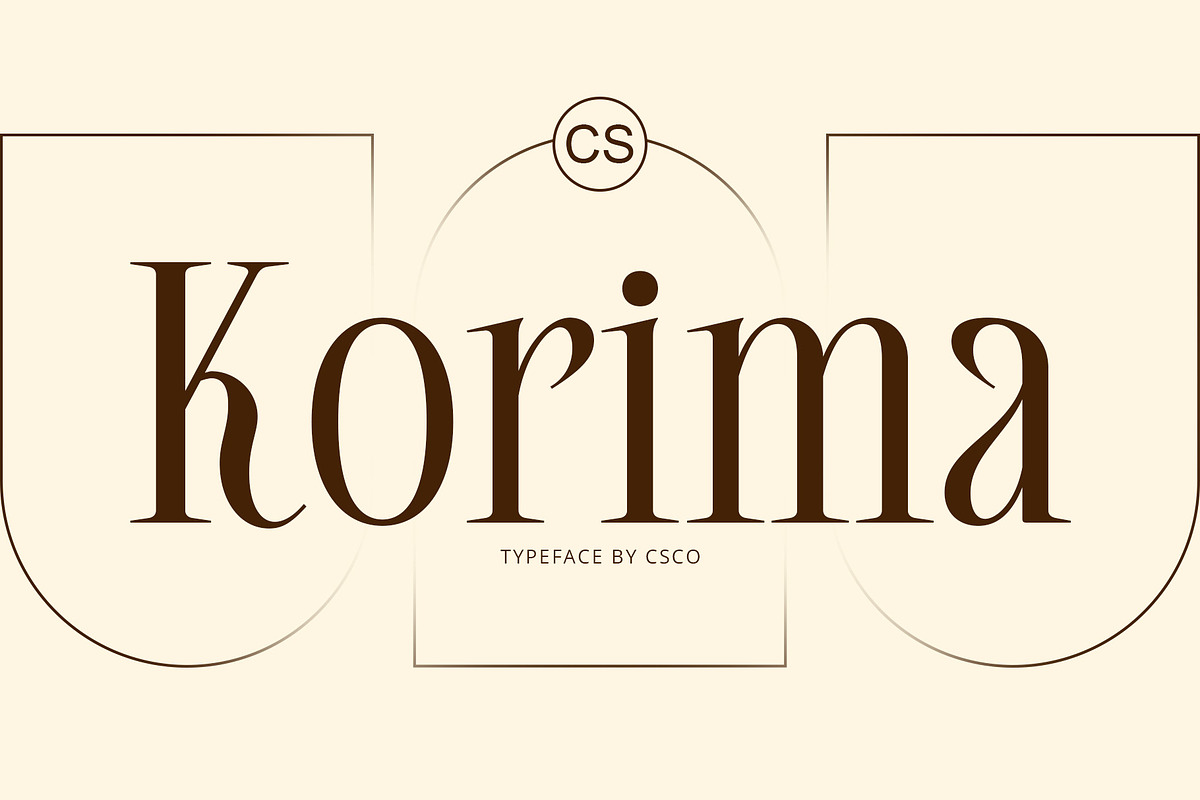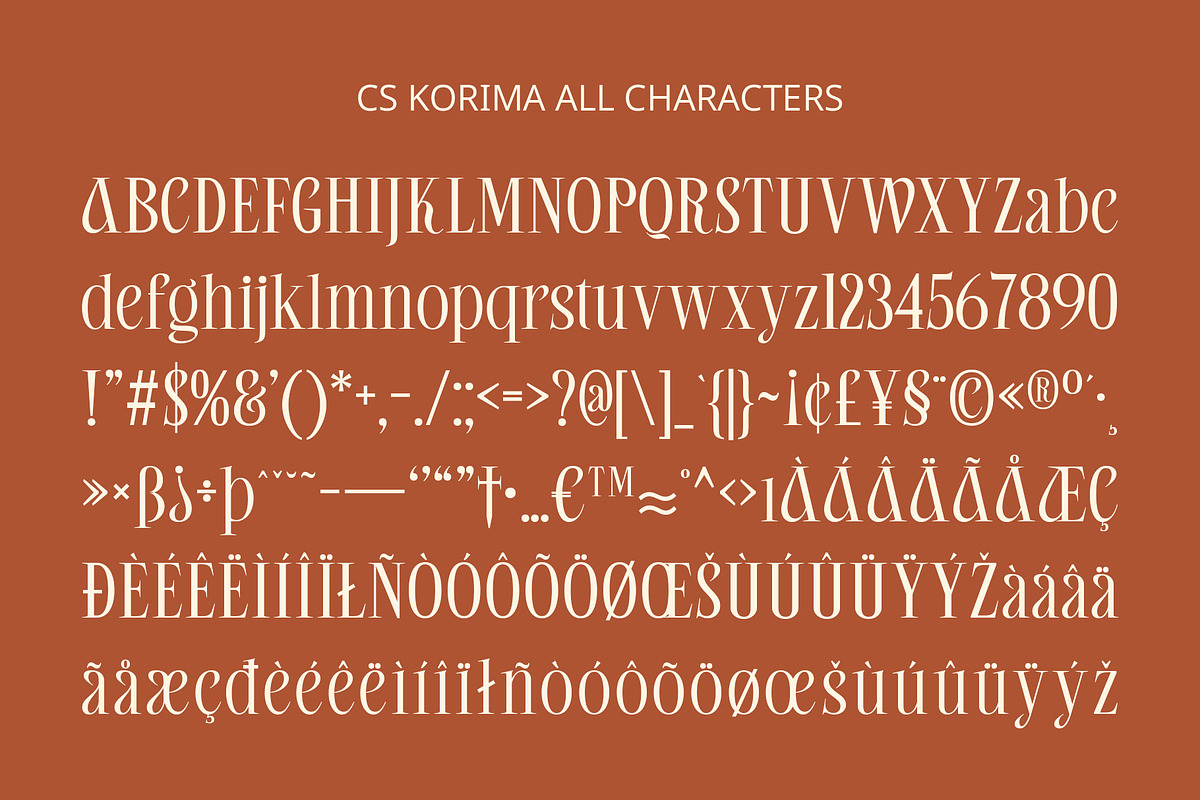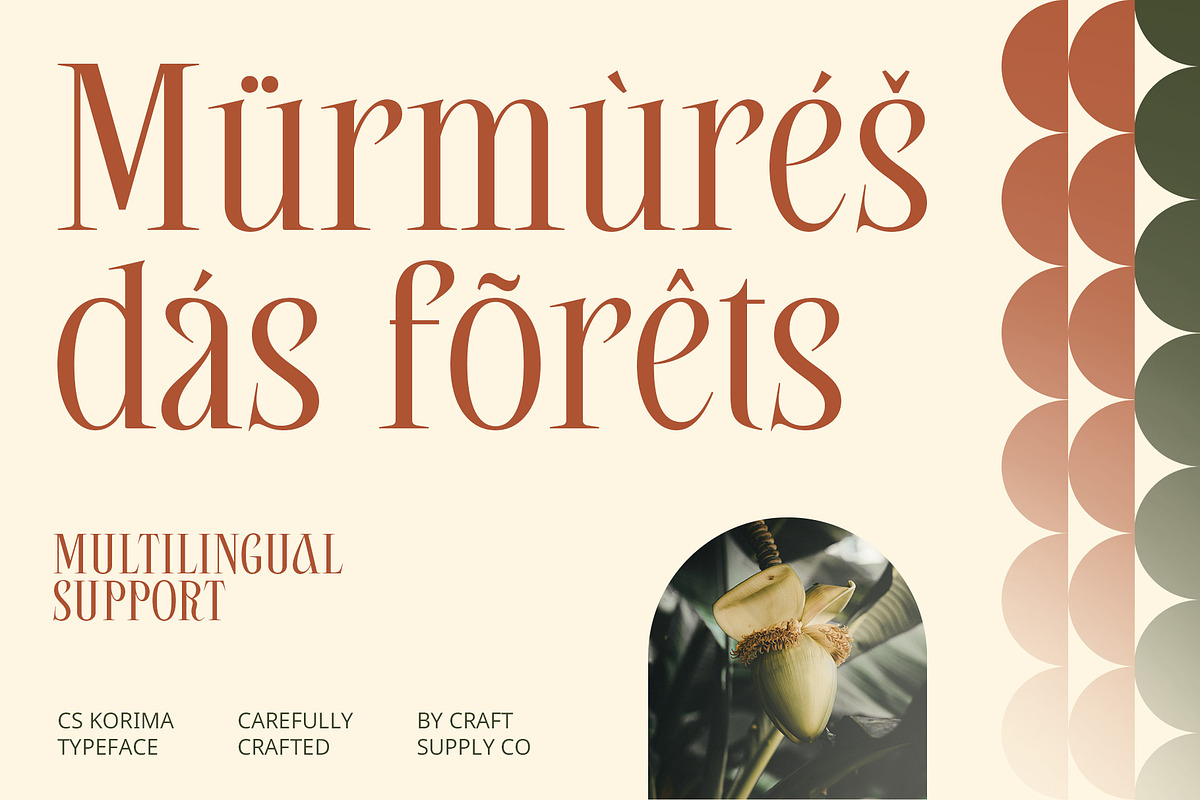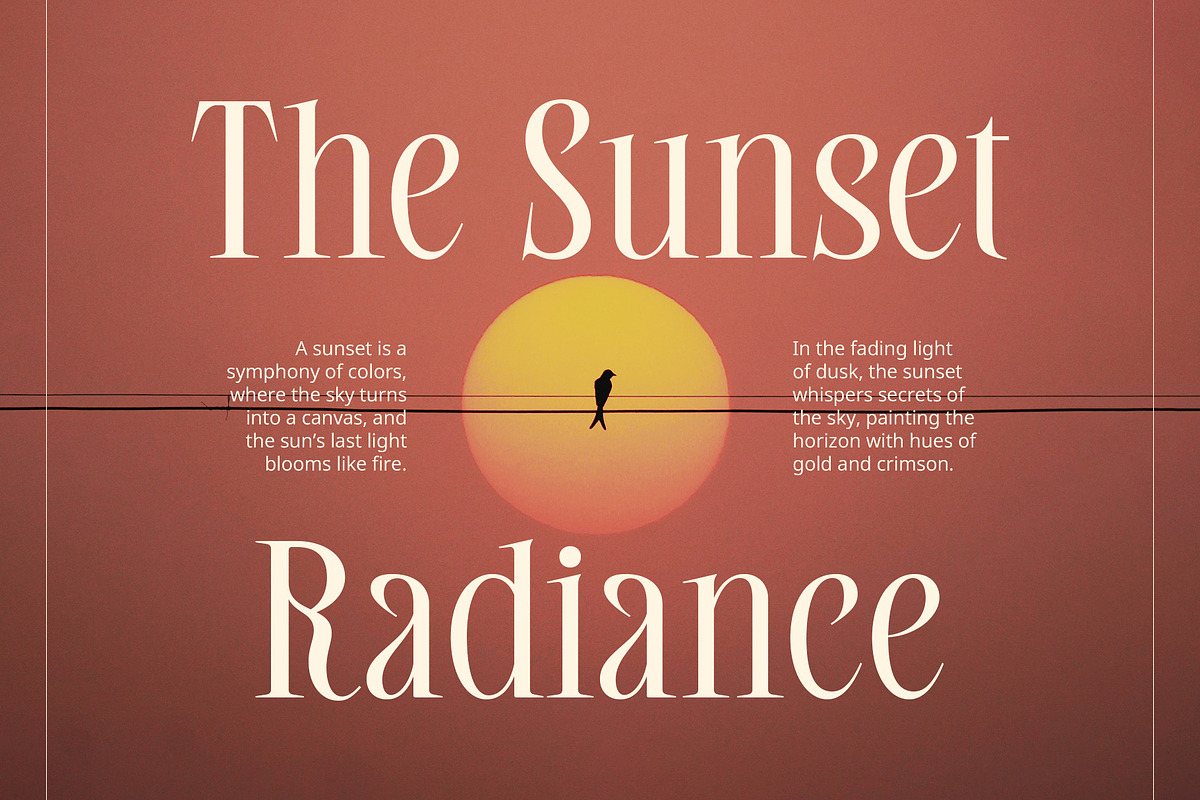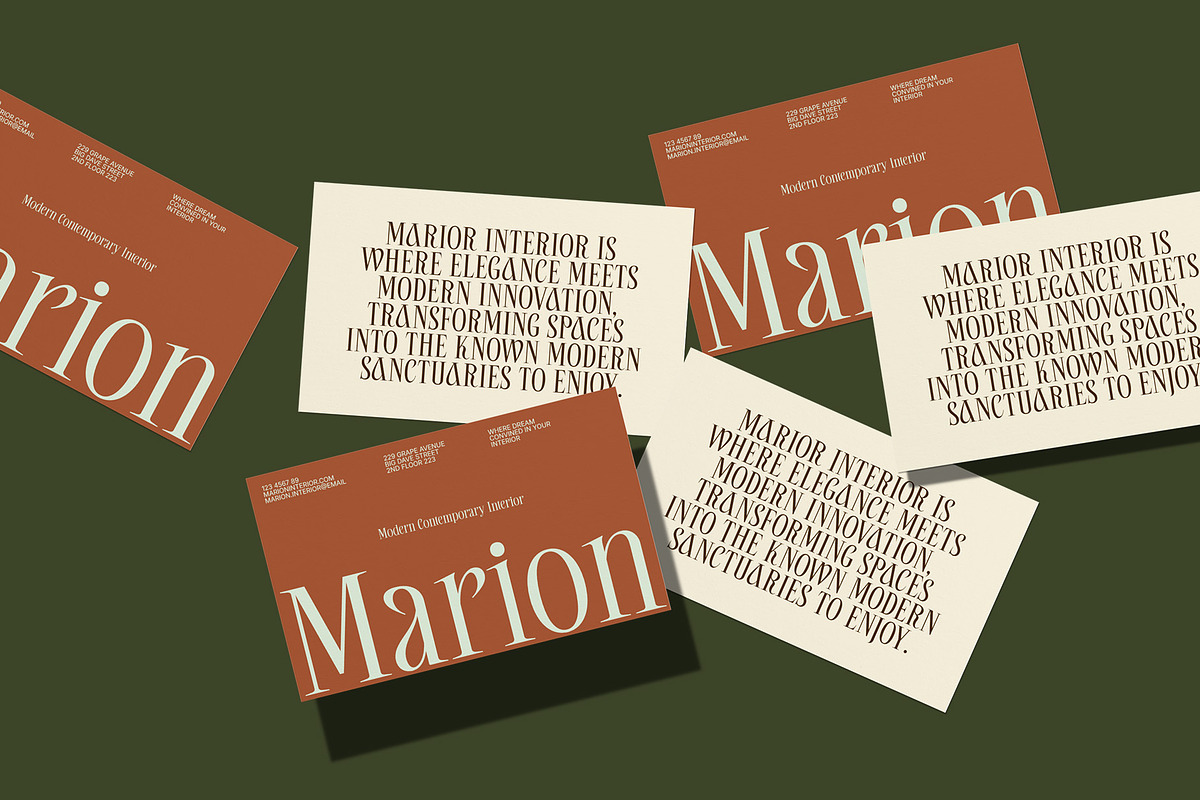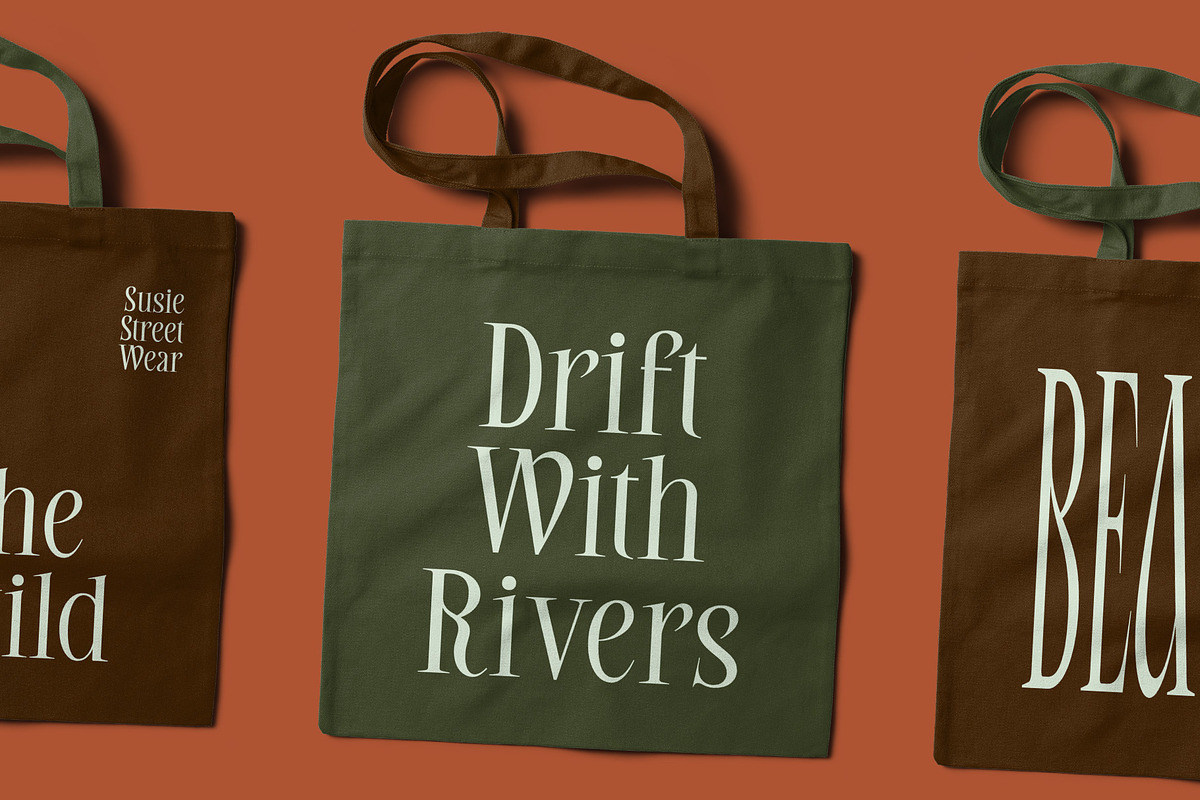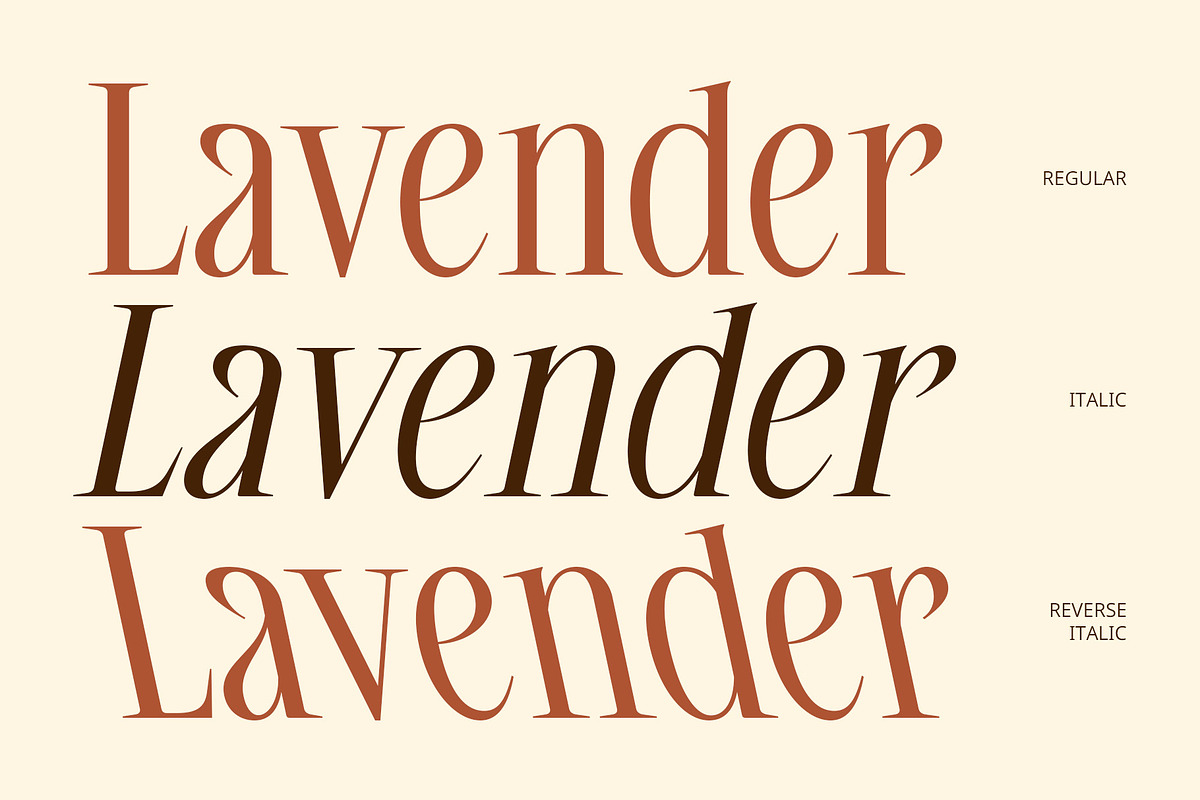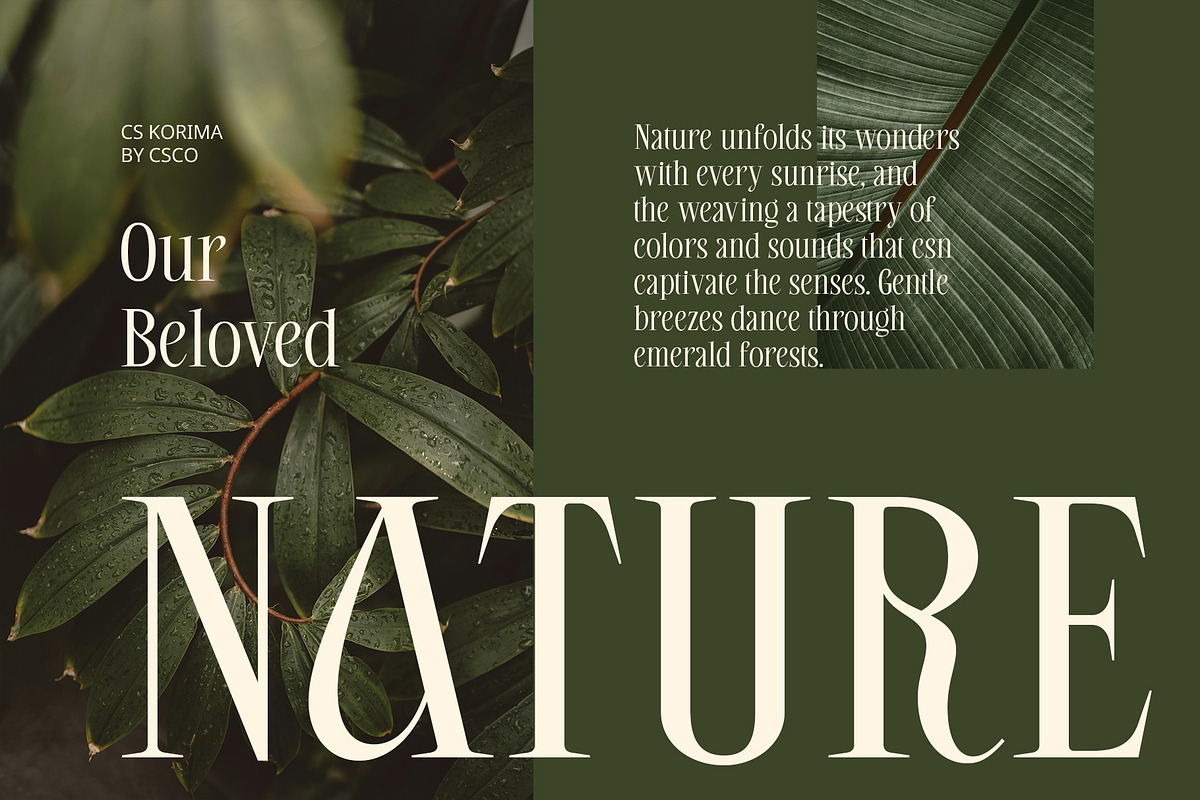
CS Korima – Elegant Font
CS Korima – Elegant Font: The Essence of Refined Sophistication
Modern Serif with Refined Elegance CS Korima is a contemporary serif font that captures the essence of elegance and sophistication. Its sleek and slender letterforms offer a delicate yet impactful presence, making it ideal for designs that demand a touch of luxury. The clean, precise detailing and slim proportions of the characters contribute to an overall refined and polished look. Perfect for high-end branding, editorial layouts, and any project seeking to convey a sense of grace, CS Korima is the epitome of modern sophistication.
Timeless Balance of Sharp Serifs and Smooth Curves The beauty of CS Korima lies in its perfect balance between sharp serifs and smooth, flowing curves. This harmonious design gives the font a timeless appeal that is both contemporary and classic. The sharp serifs add a sense of structure and elegance, while the soft curves provide a sense of warmth and approachability. Together, these elements create a polished and harmonious design that exudes class, making it ideal for luxury brands, upscale magazines, and sophisticated promotional materials.
Versatile for High-End Design Projects Whether you’re working on luxury branding, editorial spreads, or digital designs that demand an air of elegance, CS Korima offers versatility and style. Its refined design makes it perfect for projects that aim to communicate high-class sophistication while maintaining a modern and stylish edge.